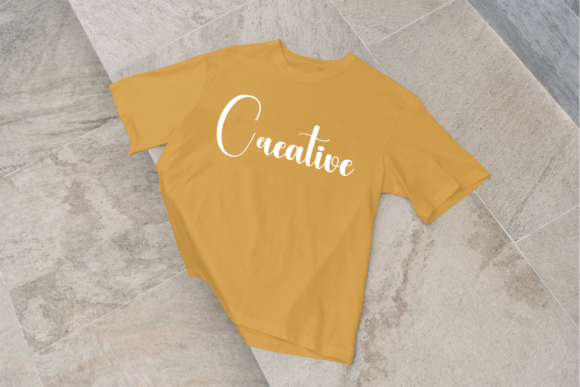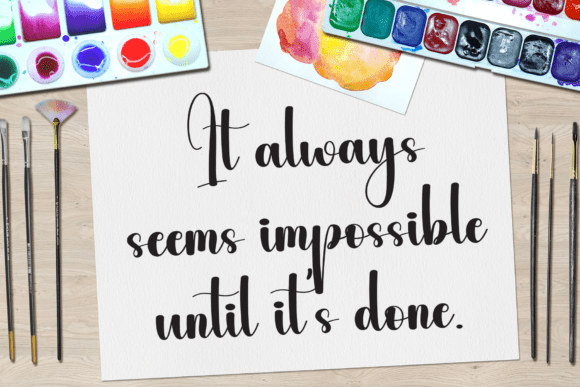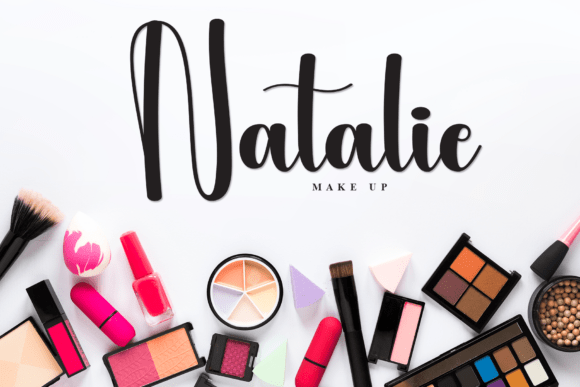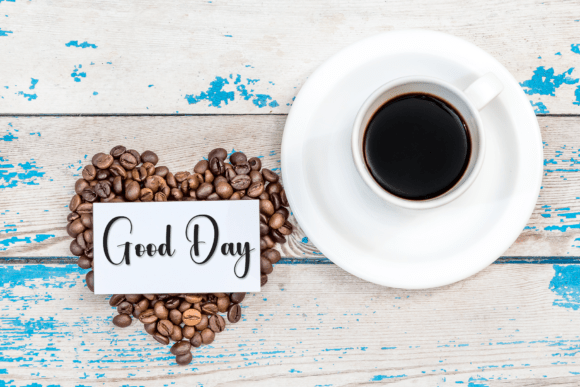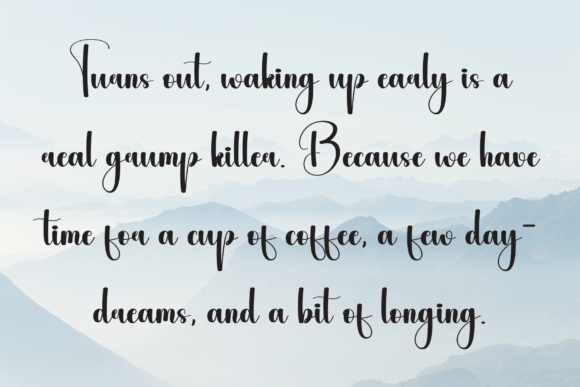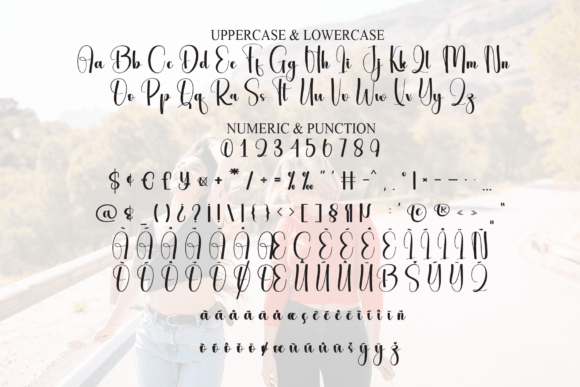
The Perfect Blend of Style and Function: Besties California Font
Have you ever stared at a blank page, struggling to find the perfect font to bring your creative vision to life? We’ve all been there. But what if you could tap into the laid-back, sun-kissed vibes of California and infuse your designs with a touch of effortless cool?
Enter the Besties California Font, a special creative product designed to give you an extraordinary experience. This font is perfect for wall displays, wedding invitations, social media post logos, advertisements, product packaging, product designs, labels, photography, watermarks, invitations, stationery, and any project that requires a touch of handwriting. With its unique style and versatility, the Besties California Font is a valuable asset for designers looking to add a personal touch to their work.
Besties California Font Key Features
- Size: The font comes in 6 styles, including Regular, Italic, Bold, Bold Italic, Light, and Light Italic, providing users with a range of options for their design needs.
- Unique Characteristics: Besties California Font features a modern, cursive script with a relaxed, friendly feel, perfect for creating a casual and approachable tone in designs.
Designer Review: Besties California Font
Overall, I think the Besties California Font has a lot going for it. ✨ The font is perfect for creating a fun, carefree vibe that’s perfect for a California-inspired project. It’s a great choice for social media graphics, advertisements, or any other design where you want to evoke a sense of sunshine and happiness.
The font is highly customizable, with a wide range of weights and styles to choose from. ✨ This means you can use it for everything from headlines to body text, and it will still look great. The font also has a lot of personality, which makes it a great choice for designs that need a bit of flair.
- Perfect for creating a fun, carefree vibe
- Highly customizable with a wide range of weights and styles
- Lots of personality and character
- May not be suitable for formal or professional designs
- Can be a bit too playful for some projects
- May require additional styling to make it stand out in certain contexts
Overall, I think the Besties California Font is a great choice for designers who want to create fun, engaging designs that evoke a sense of California cool. Just be aware of its limitations and use it in contexts where it will shine.
Tips for Getting the Most Out of Besties California Font
Use Besties California Font for titles, headings, and other attention-grabbing elements in your design. It’s perfect for creating a fun and playful vibe. Experiment with different font sizes and colors to add depth and interest to your design.
Besties California Font is ideal for social media graphics, blog posts, and other digital content that requires a fun and playful tone. It’s also great for creating eye-catching titles and headings for presentations, reports, and other business materials.
Alternatives to Besties California Font
Pacifico is a beautiful script font that captures the laid-back vibe of California. It’s perfect for designs that require a touch of elegance and sophistication. Use Pacifico for creating invitations, wedding designs, and other high-end projects.
Compared to Besties California Font, Pacifico has a more refined and polished look, making it suitable for formal designs. It lacks the playful, handwritten feel of Besties California Font.
Q: What is the recommended font size for Besties California?
The recommended font size for Besties California varies depending on the application and design context. As a general guideline, use it at a minimum of 12pt for body text and 24pt for headings. This will ensure the font looks its best and is legible in most situations.